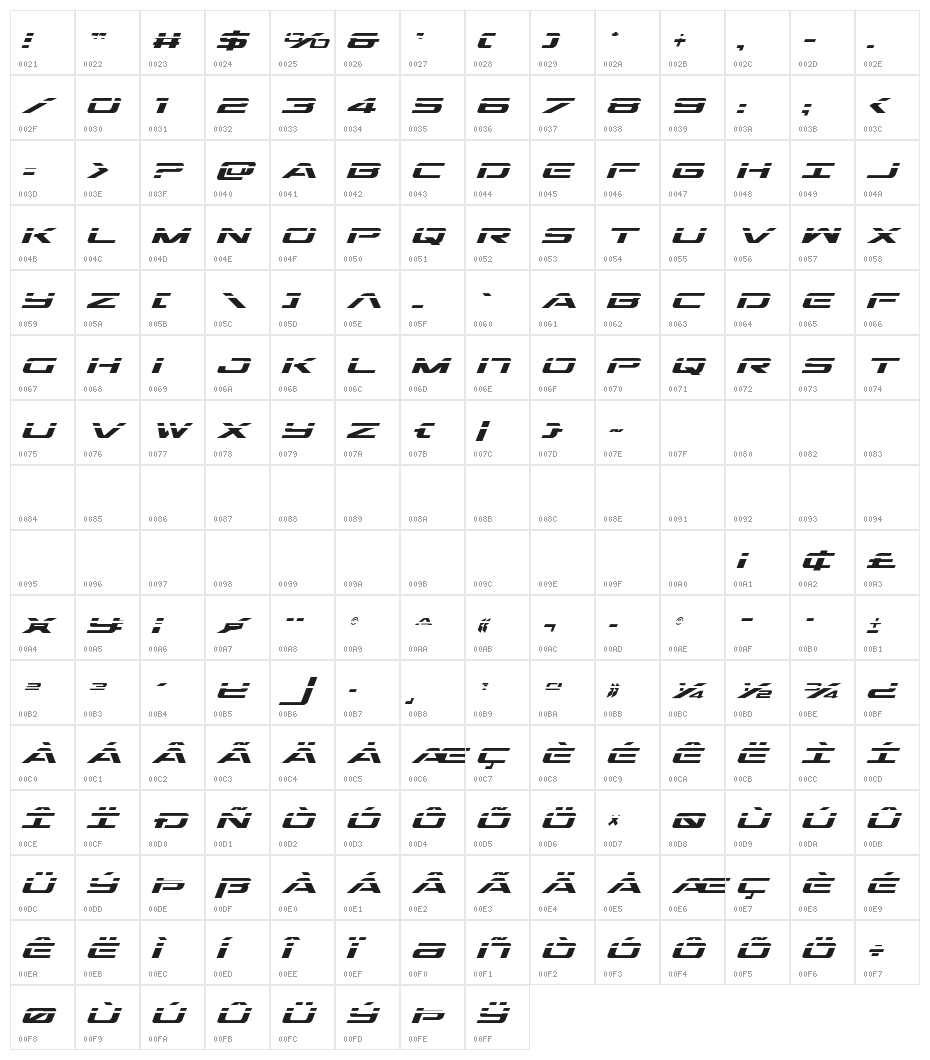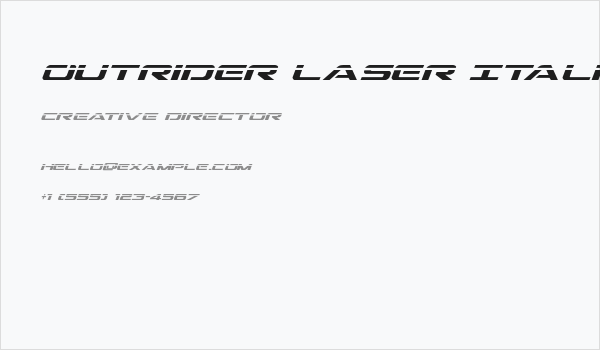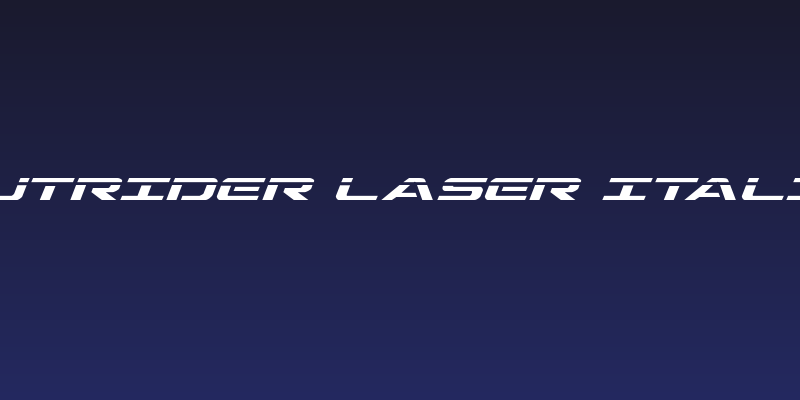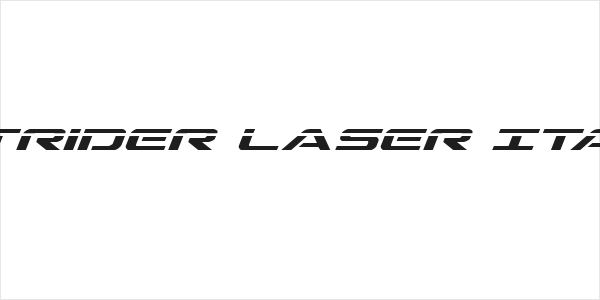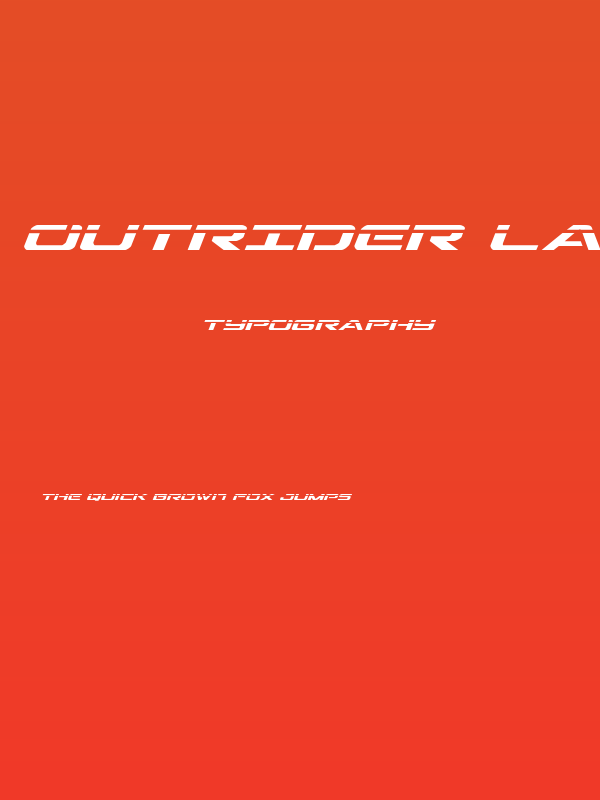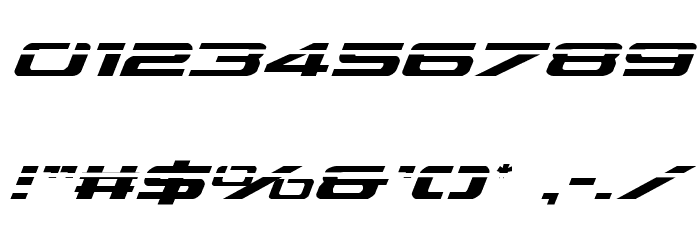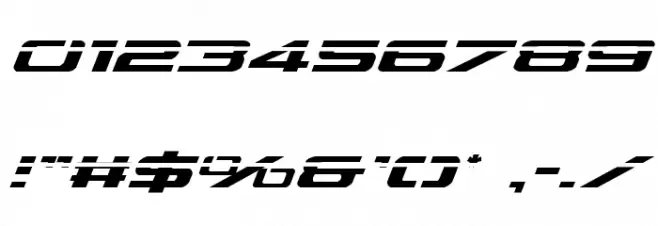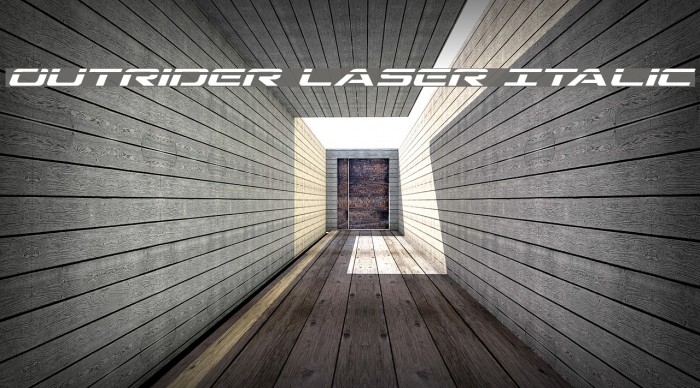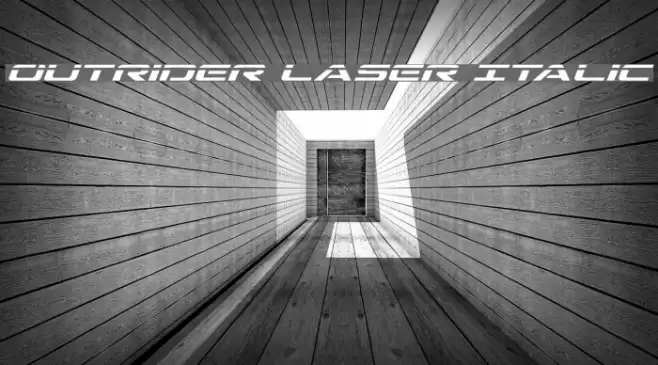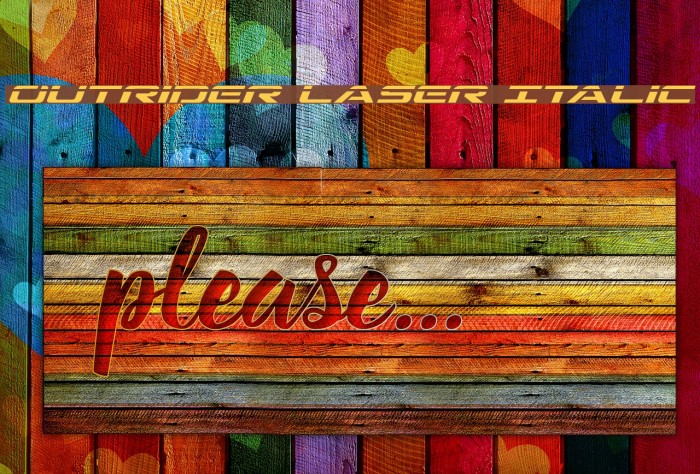
Outrider Laser Italic Font
| Projetos propostos | Ideal for sci-fi themed projects, technology branding, video game titles, and modern advertising campaigns. |